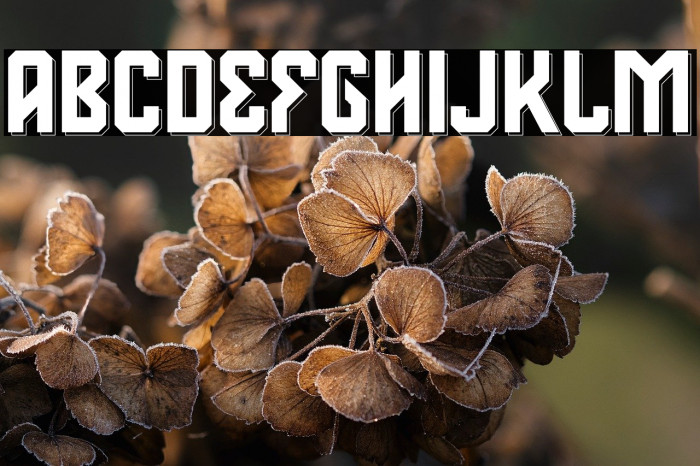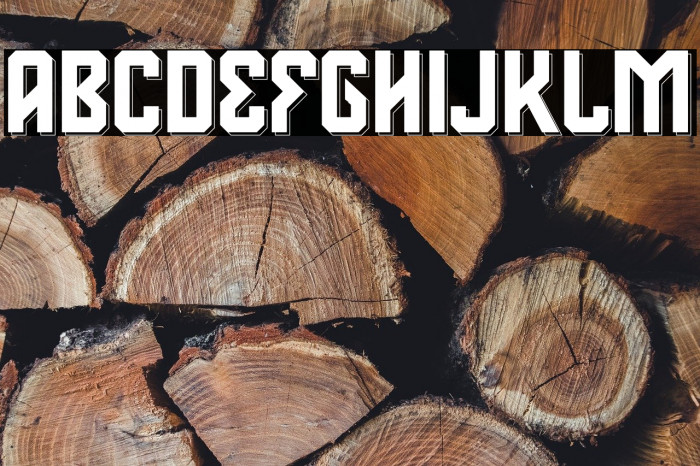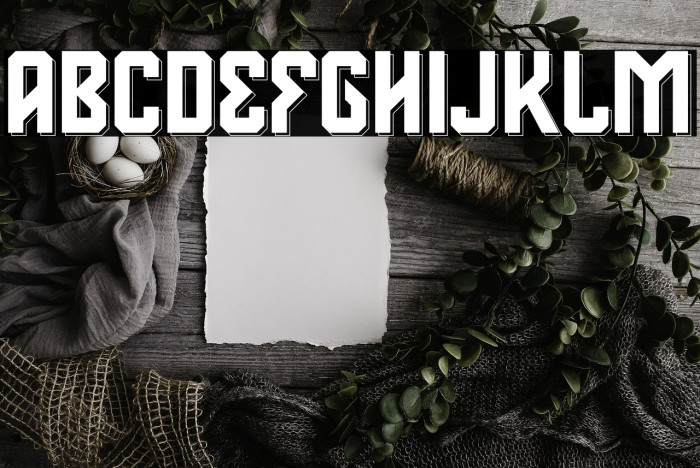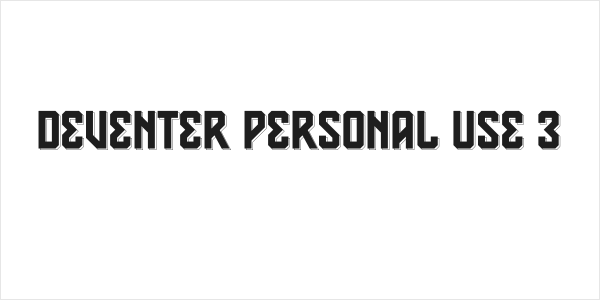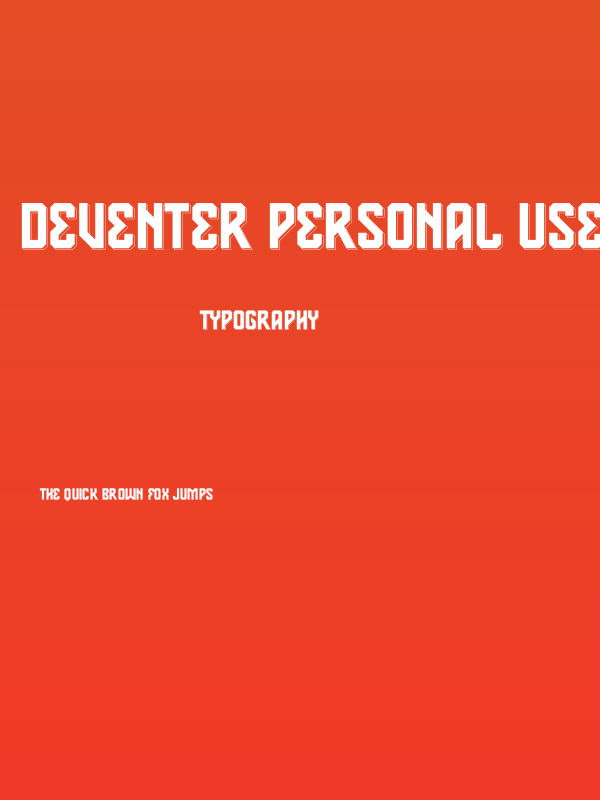
Deventer PERSONAL USE 3 Font
Deventer PERSONAL USE 3 Description
This font features a bold, geometric design with a strong presence. The characters are constructed with sharp angles and a blocky structure, giving it a modern and industrial feel. The uppercase and lowercase letters maintain a consistent style, with a slight variation in size and weight. Numbers and special characters are designed to match the boldness and angularity of the alphabet, ensuring a cohesive look across all elements. The font's thick strokes and high contrast make it highly legible and impactful, suitable for attention-grabbing headlines and designs.
| Proposed Projects | This font is perfect for projects that require a strong visual impact, such as posters, logos, branding materials, and signage. Its bold style makes it suitable for sports team branding, music album covers, and event promotions. |